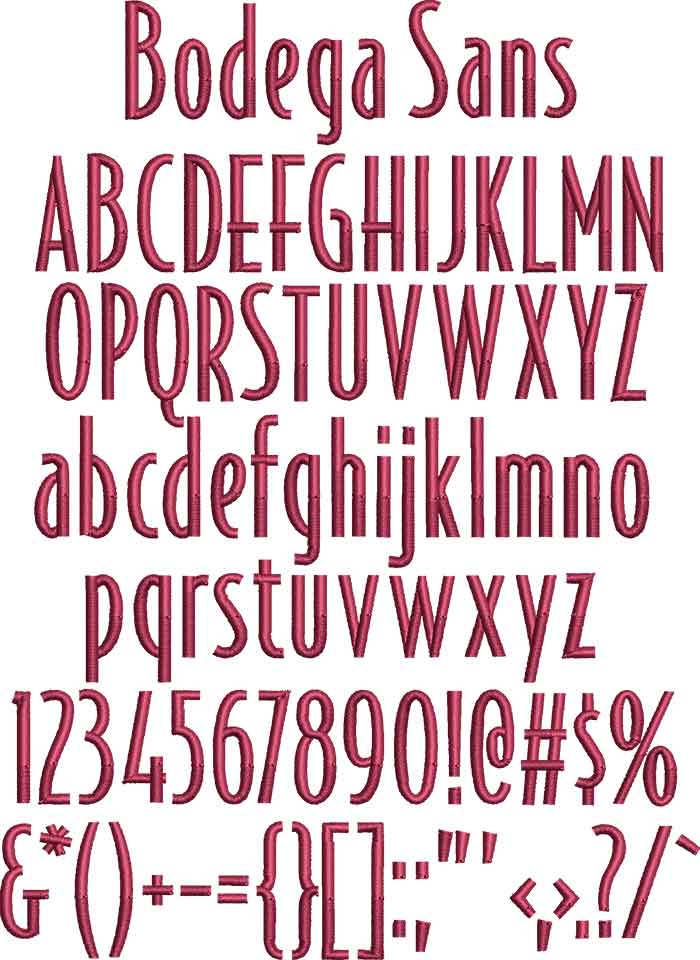
BX Embroidery Font: Bodega Sans
BX Embroidery Font: Bodega Sans (4 sizes) is a condensed sans serif machine embroidery font that includes A-Z, a-z, 0-9 and punctuation; 4 sizes.
BX embroidery font:
Bodega Sans (4 sizes) is a condensed sans serif machine embroidery font that includes A-Z, a-z, 0-9 and the following punctuation: `!@#$%&*()-+={}[]|:;”‘<>,.?/ (91 total characters per size). 4 sizes.